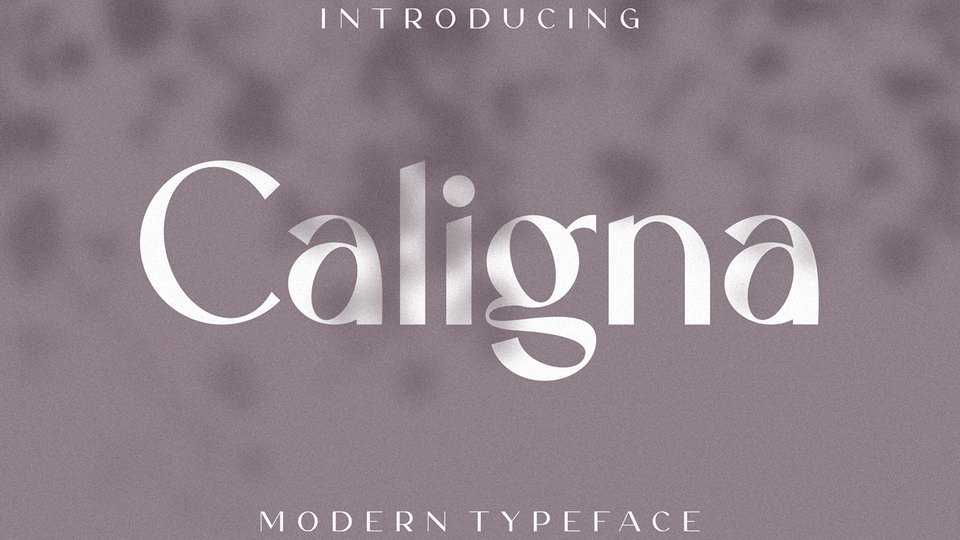
Download Caligna font, a beautiful sans serif typeface with a unique and modern style that is luxurious, suitable for design in the business field such as fashion, food, hotel, restaurant.
Designer: Holis Majid